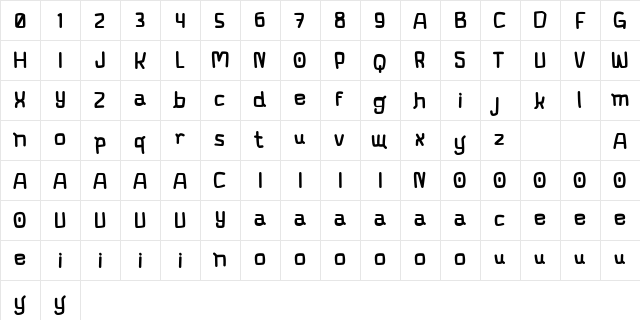
Organico Regular
| Foundry | TKK Studio |
| Designer | Sahirul |
Design Context for Organico Typeface
Organico offers clean, dependable letterforms without strong stylistic allegiance, making it a practical choice for designers who need flexibility.